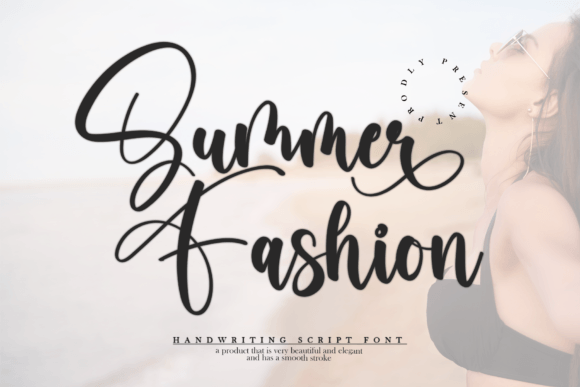
Unleash the allure of exquisite typography with Summer Fashion Font, a symphony of elegance and charm. This captivating handwritten font will leave you spellbound with its captivating beauty. Adorn your creations with an air of timeless sophistication, making every letter a visual masterpiece.
Picture the allure of your wedding invitations, the warmth of thank-you cards, the wisdom of quotes, the sincerity of greeting cards, the boldness of logos, the professionalism of business cards – all elevated to new heights of visual artistry by the sheer magic of Summer Fashion Font.
With Summer Fashion Font, you'll effortlessly weave a narrative of sophistication and grace, etching your thoughts and expressions into the hearts of your audience. Its PUA encoding grants you effortless access to a treasure trove of glyphs and alternates, bestowing upon you the power to conjure a symphony of typographic artistry.
Indulge in the splendor of Summer Fashion Font and unlock a world of creative possibilities. From the allure of handwritten notes to the allure of digital masterpieces, let your imagination run wild as you witness your words transformed into breathtaking works of art.